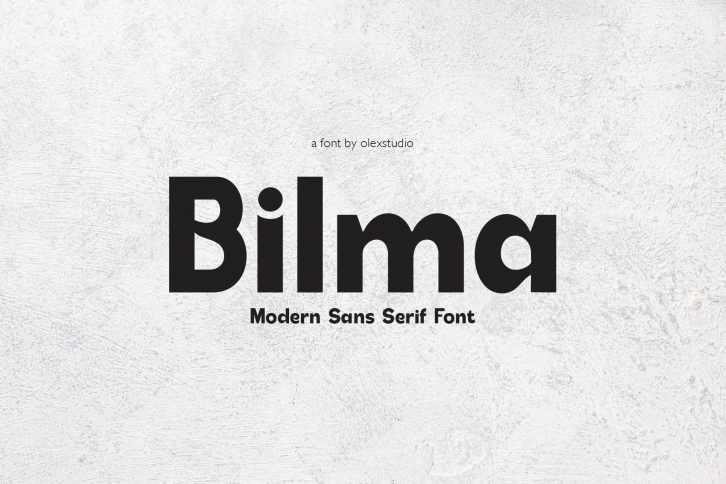
BILMA - Sans Serif is a modern sans serif Font will look gorgeous on all your designs, invitation, poster design, book design, branding materials, logo's, t-shirt etc.
BILMA - Sans Serif contains standard characters Uppercase, lowercase, numbers, punctuation, ligatures and international glyphs. You will receive OTF, TTF files & WEBFONT.